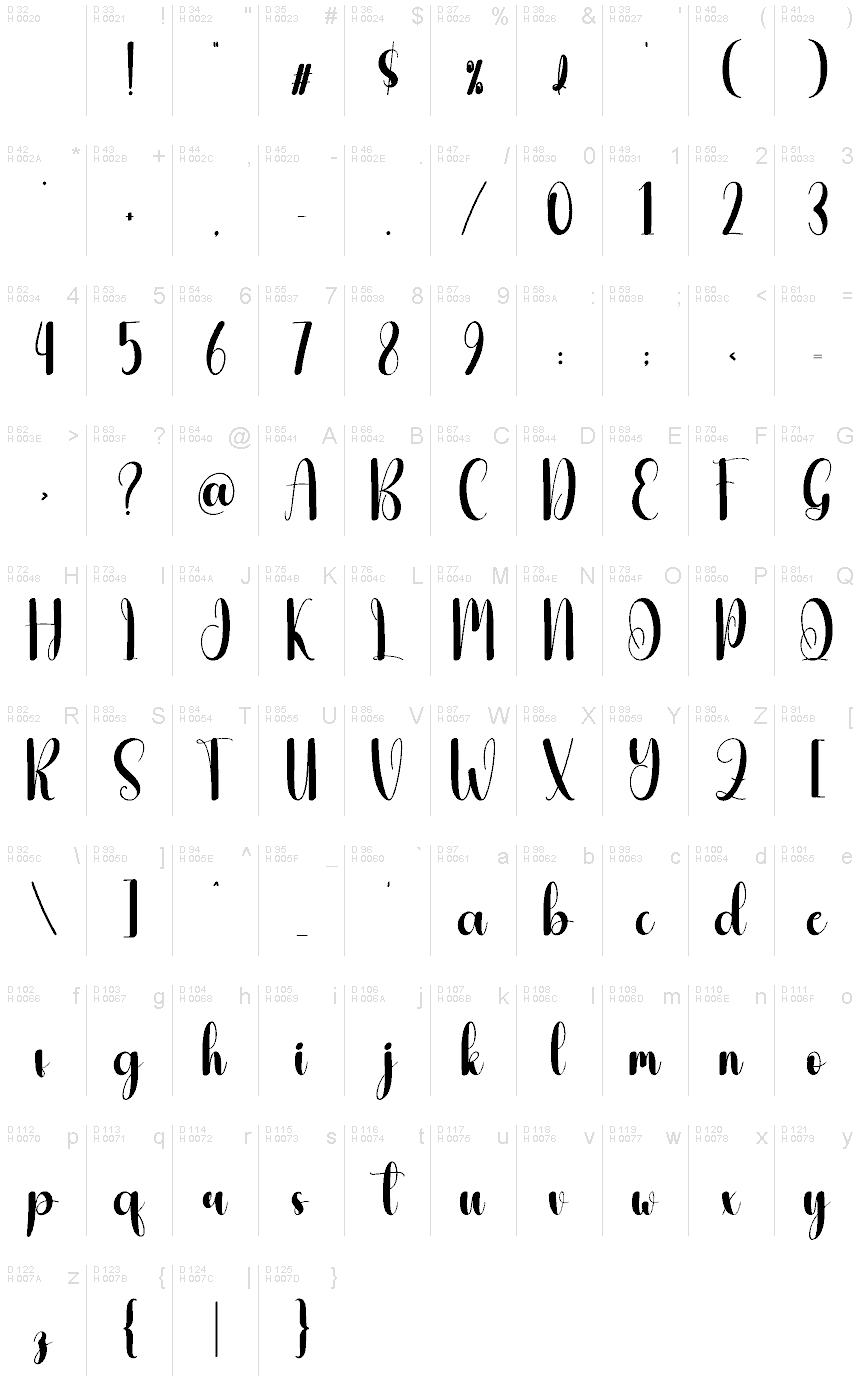
Maturity
Maturity font by Andi Moz is a free handwritten font designed with maturity and experience in mind. The modern display font looks elegant and comes with flowing characters that are further complimented by expressive swashes and graceful curves. A beautiful luxurious aesthetic is guaranteed to be seen in every word typed, regardless of purpose.